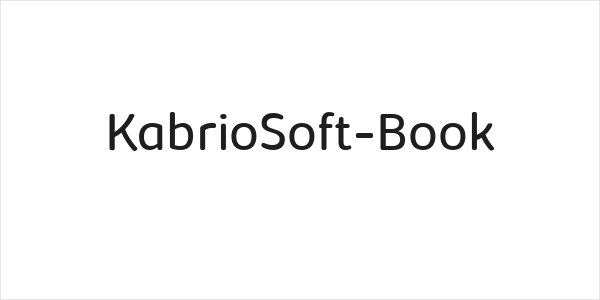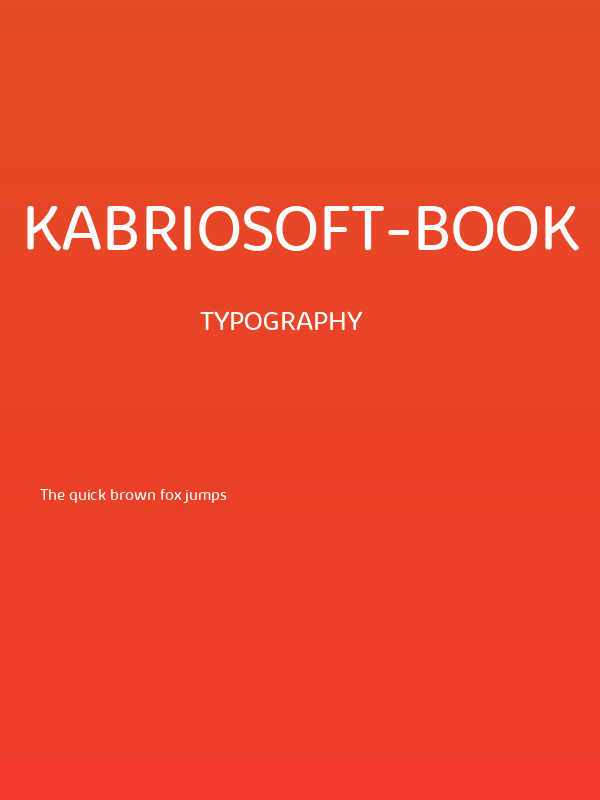
KabrioSoft-Book Font
KabrioSoft-Book Description
This typeface features a clean and modern design with rounded edges that provide a friendly and approachable appearance. The characters are evenly spaced, contributing to excellent readability. The uppercase and lowercase letters maintain a consistent style, with smooth curves and a uniform stroke width. The numerals and special characters are designed to match the overall aesthetic, ensuring a cohesive look across all text elements. This font is versatile, suitable for both digital and print media, and can be used in various design contexts.
Proposed ProjectsIdeal for branding, web design, user interfaces, and print materials such as brochures and flyers.